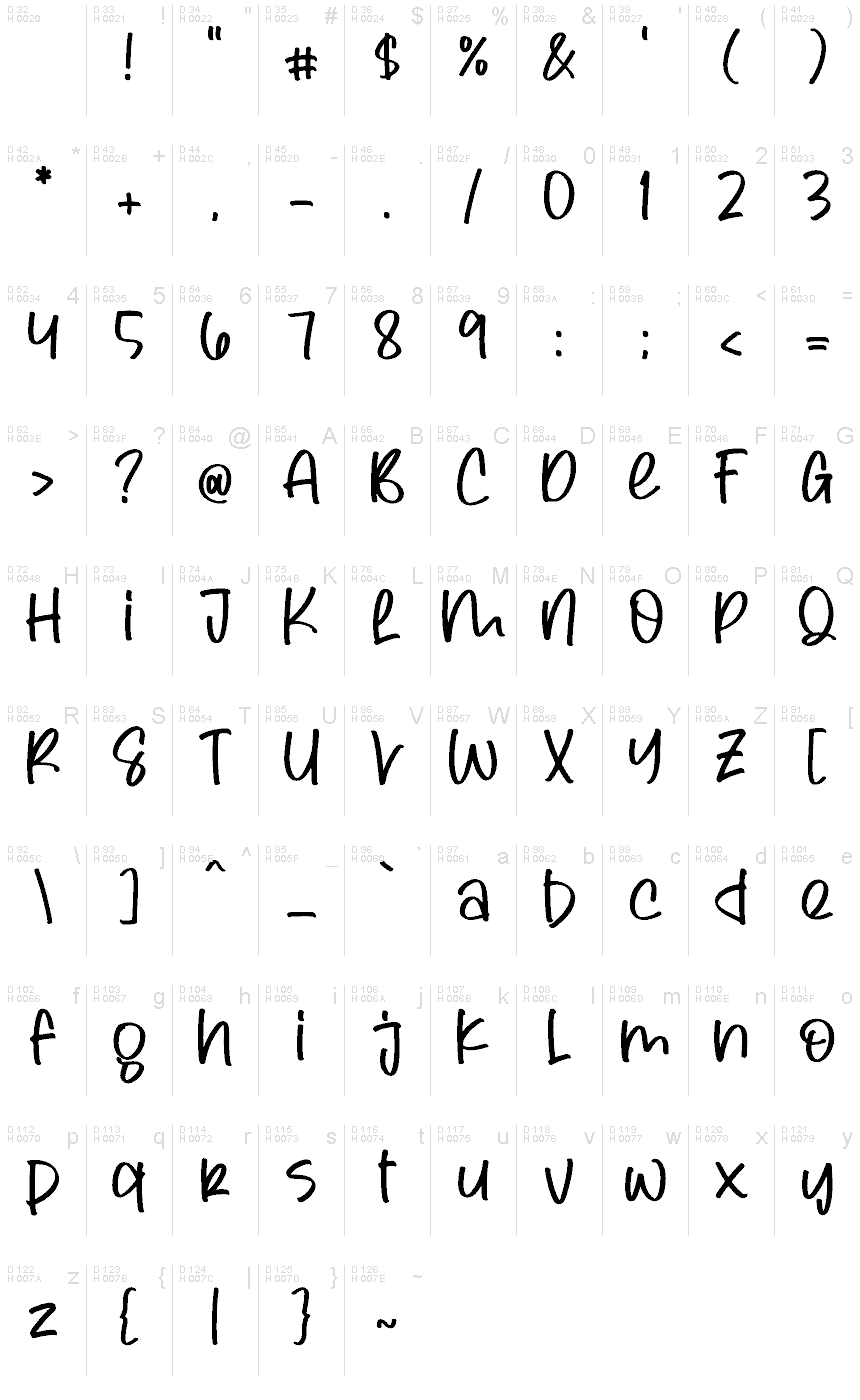
Skaterain
Skaterain font from Perspectype Studio - Letterena.com is a fresh handwritten font with a hand-drawn feel. Its casual, inviting, and energetic mood contributes to the typography’s brilliance and uniqueness in each of its usages. The energy that the laid-back characters omit allows end designs to connect with their readers on a more personal level.
This contemporary font has never been more stylish and practical when applied in branding projects and packaging designs. Other uses include greetings cards, invitation cards, book covers, movie posters/publicity material, blogs/banners adverts for casual audiences and social media posts such as Instagram stories.